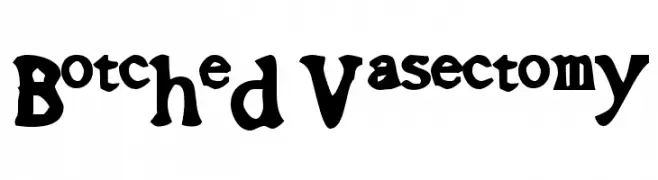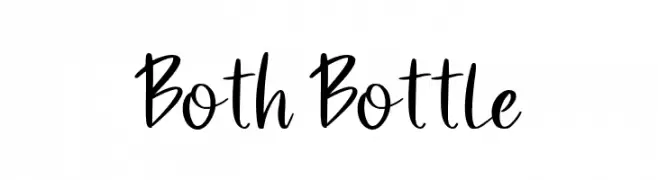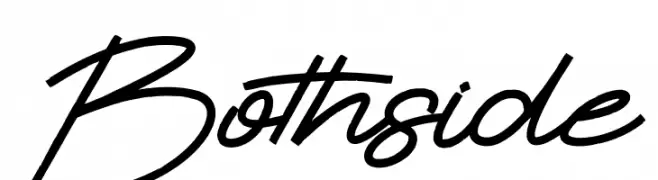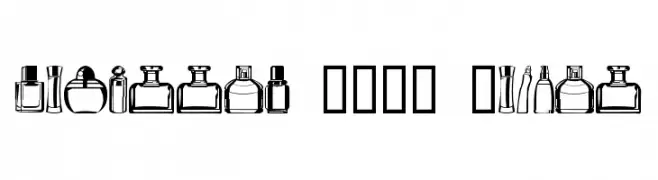
A dynamic script font with smooth, flowing lines and a modern touch.
A bold, distressed font with a vintage, textured appearance.
A bold, distressed font with a rugged, vintage texture.
A playful, hand-drawn font with bold, irregular shapes and a whimsical style.
A bold, handwritten font with playful curves and a casual, dynamic style.
A lively, expressive handwritten font with dynamic strokes and playful characters.
A bold, flowing script font with elegant, cursive letterforms and medium contrast.
A modern, elegant script font with flowing, cursive strokes.
A bold, cursive font with elegant, flowing lines and decorative flourishes.